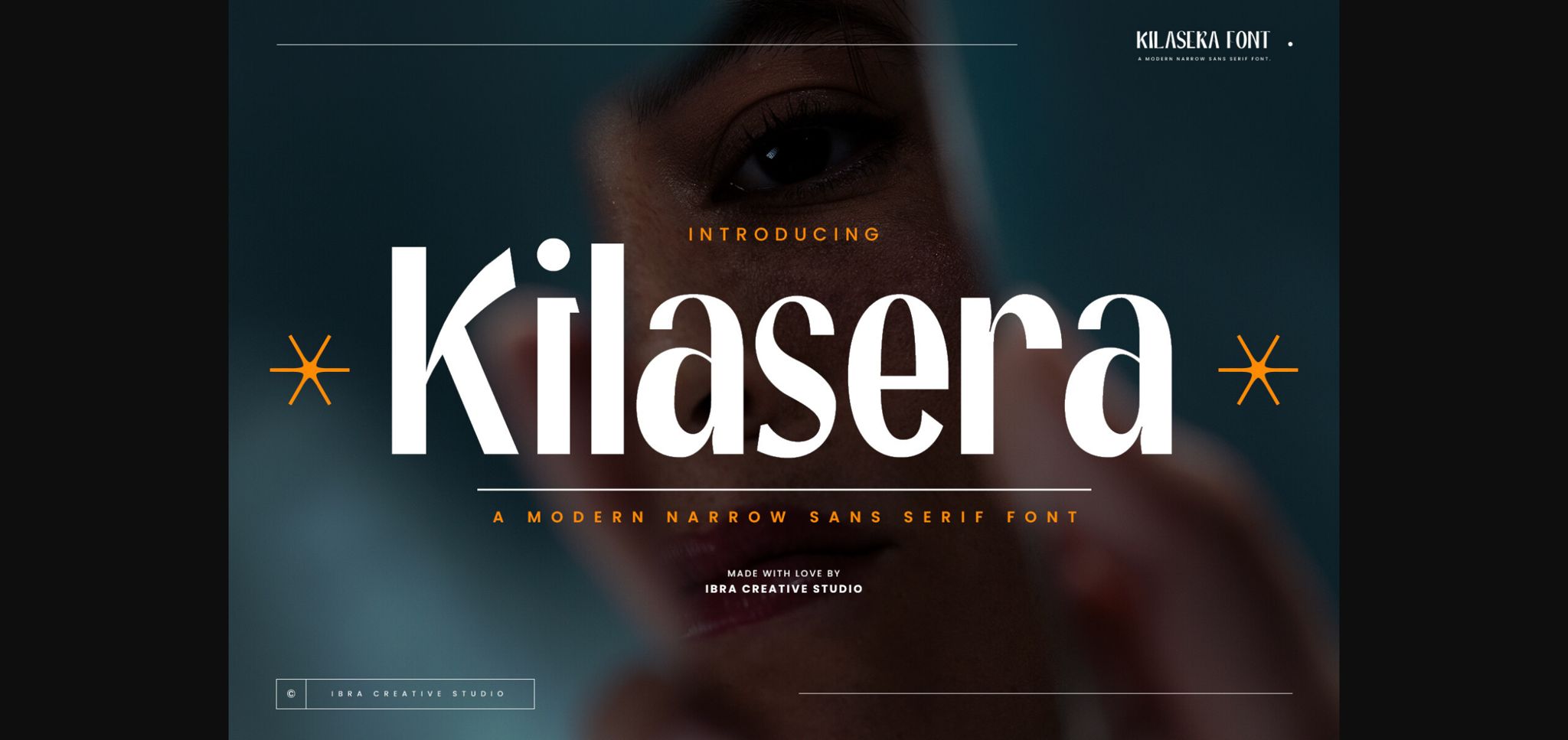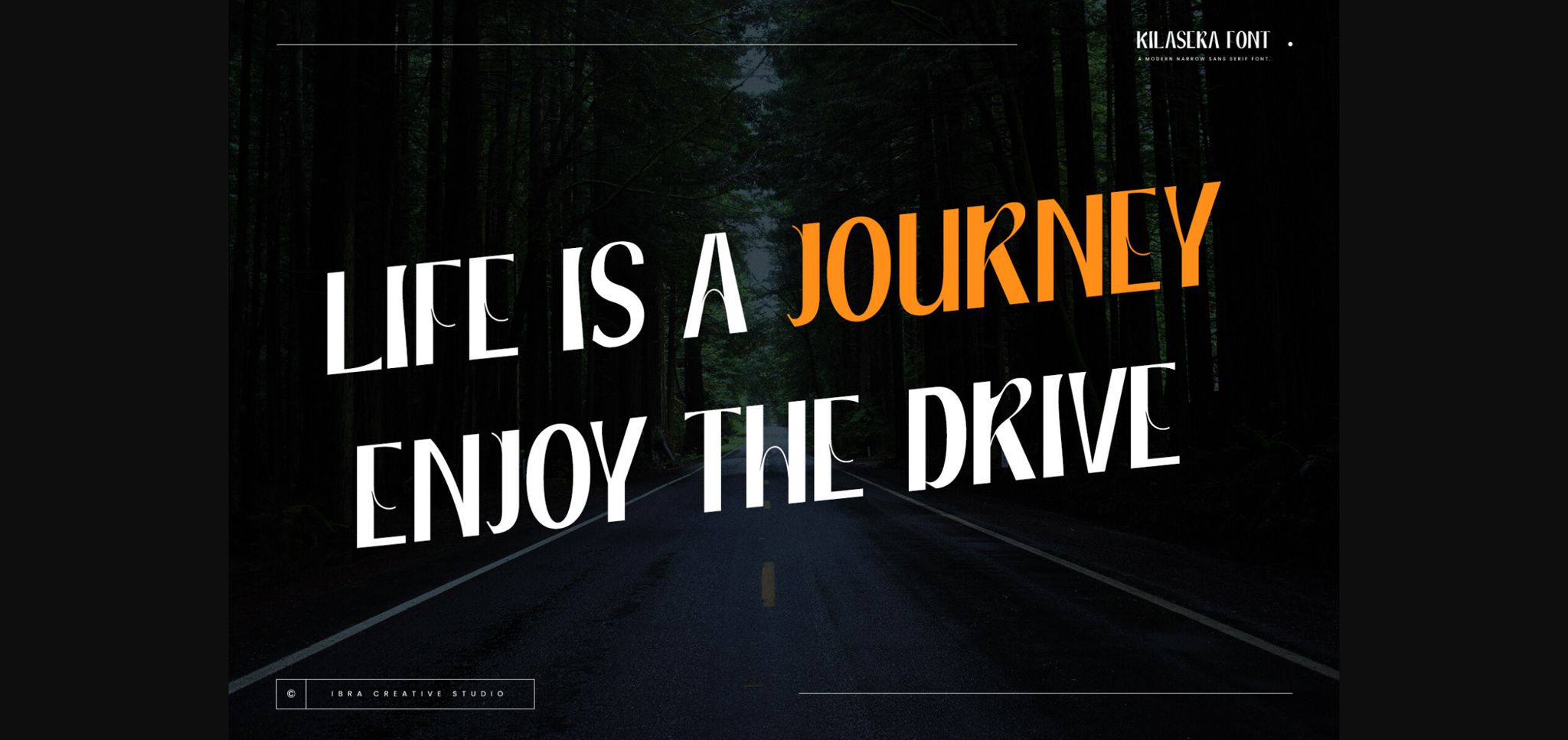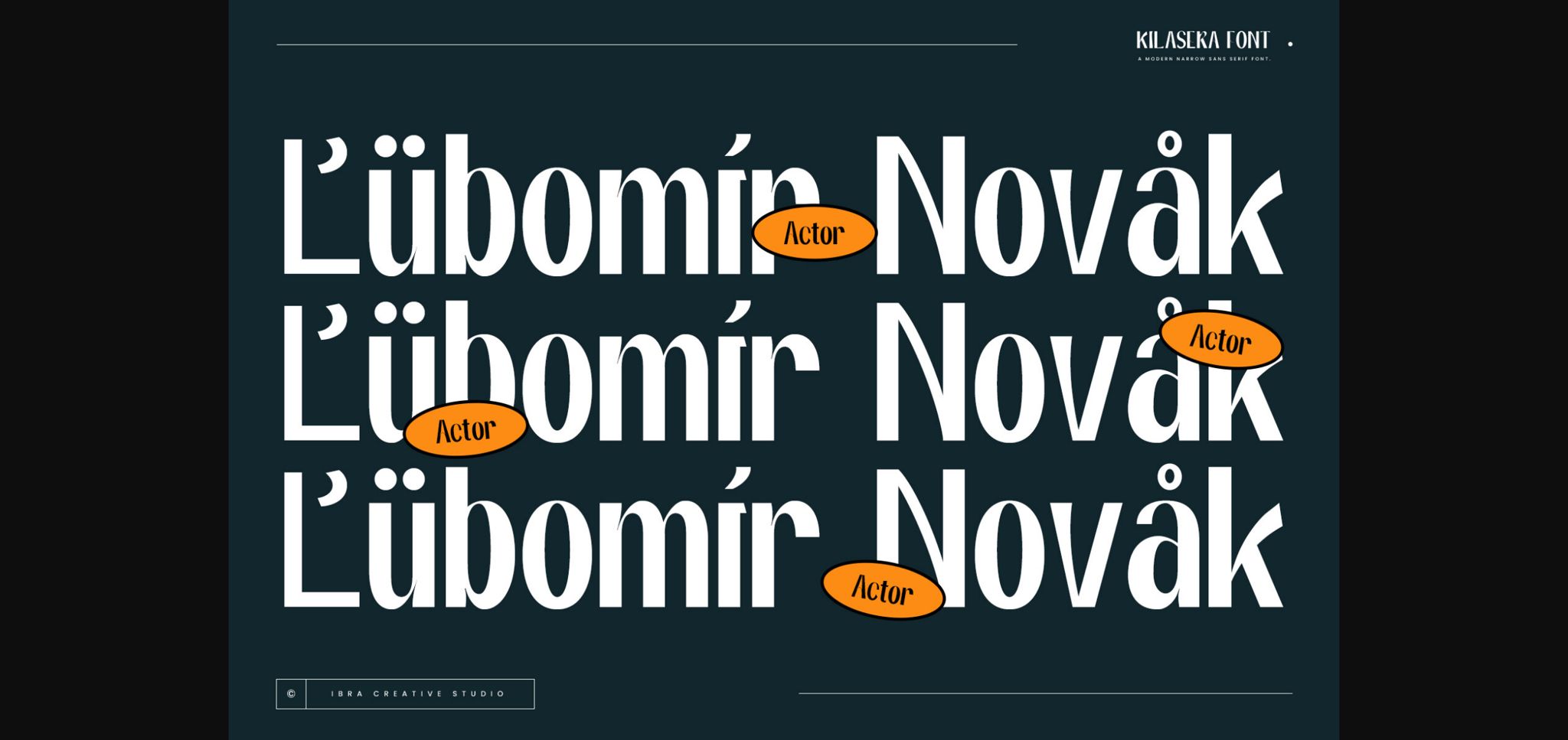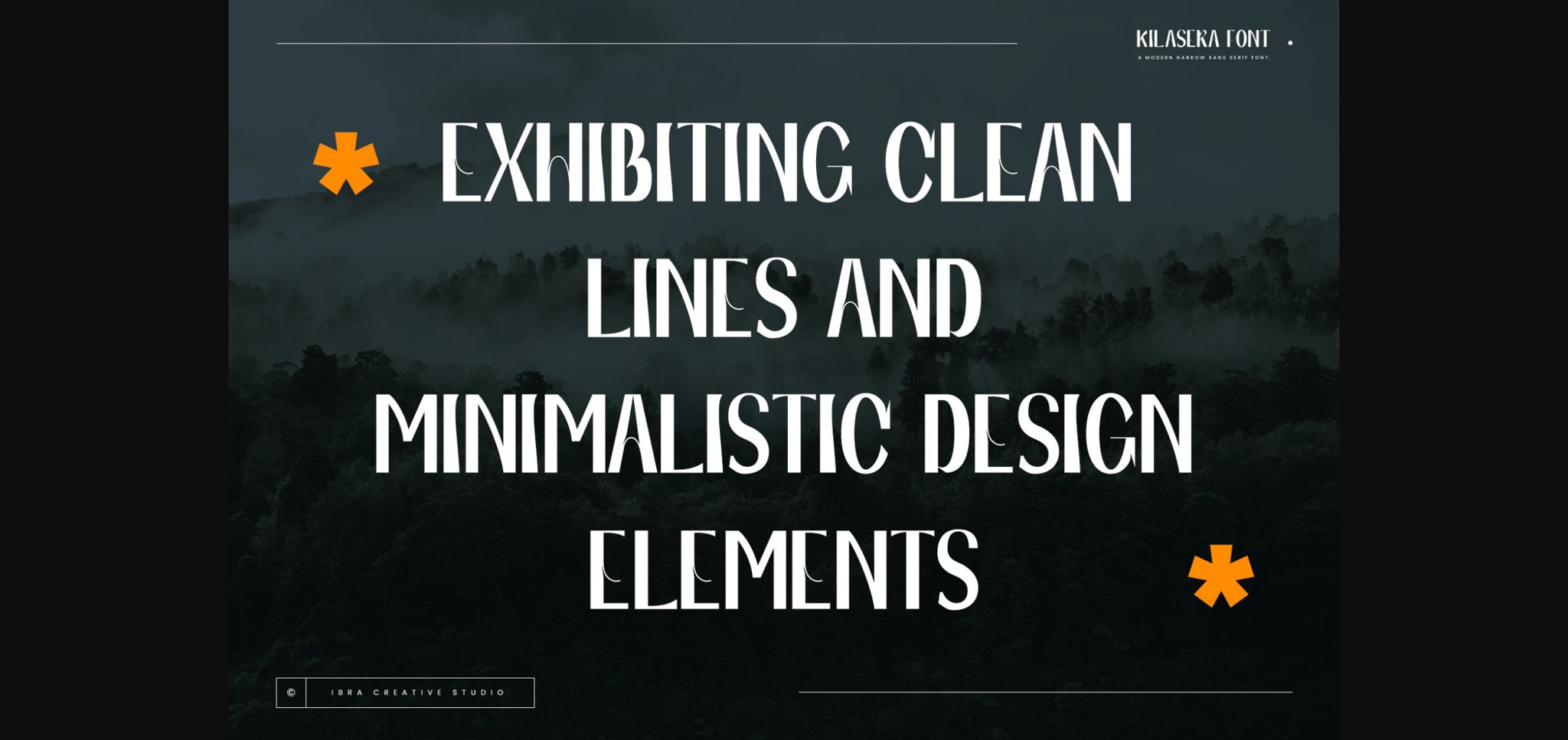
About Kilasera Font
Kilasera is a contemporary narrow sans-serif font that effortlessly blends sophistication with modernity. Exhibiting clean lines and minimalistic design elements, Kilasera exudes a sense of sleekness and versatility. With its slender proportions, the font is well-suited for a wide range of applications, from editorial layouts to digital interfaces. The letterforms are meticulously crafted, featuring balanced spacing and a subtle geometric precision that ensures readability without compromising on its distinctive aesthetic.